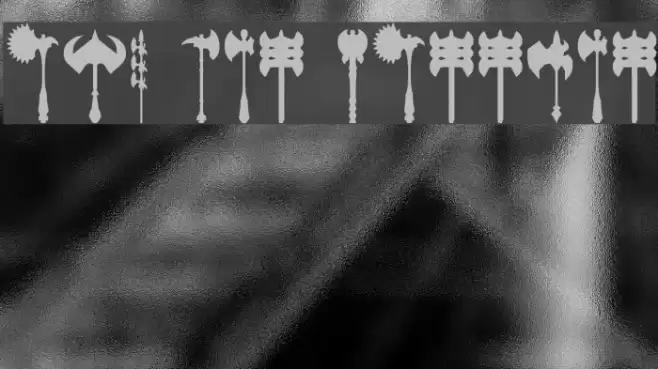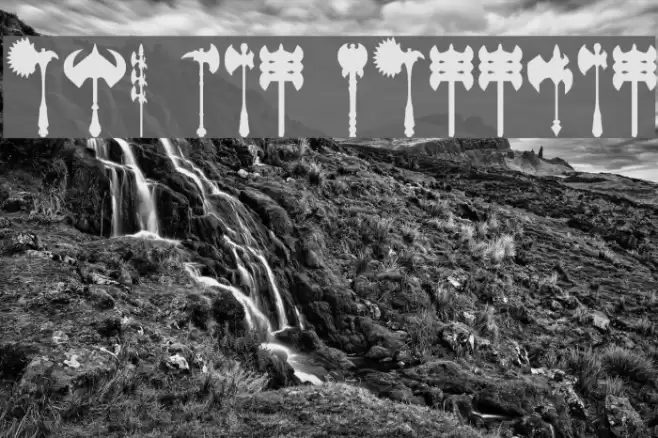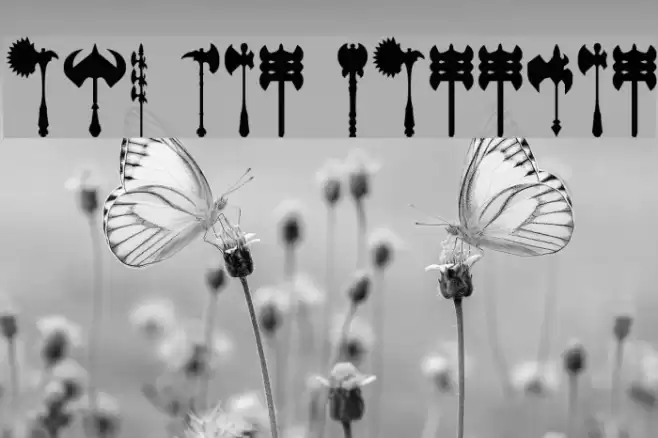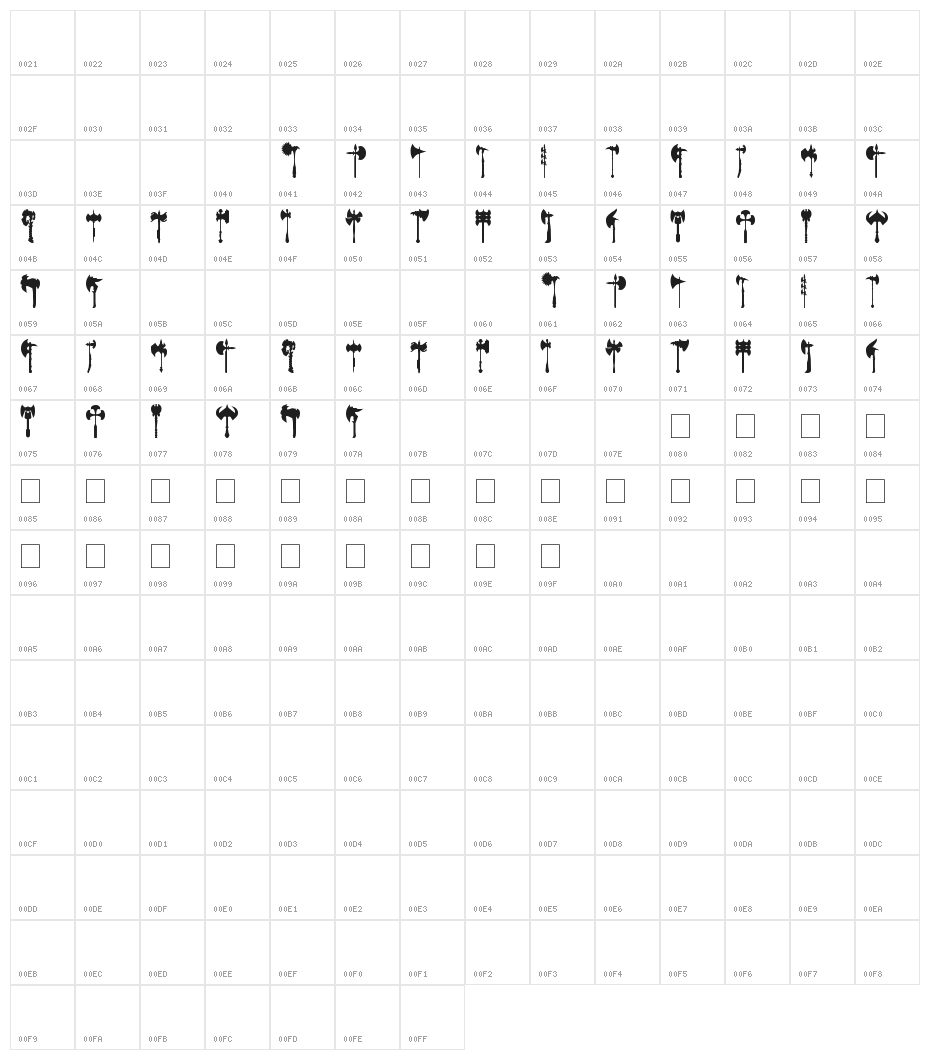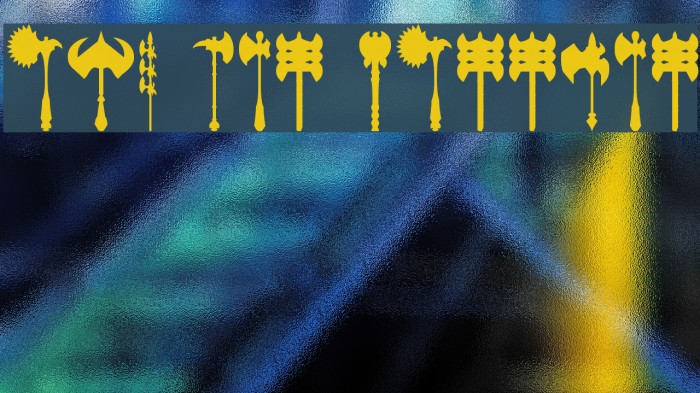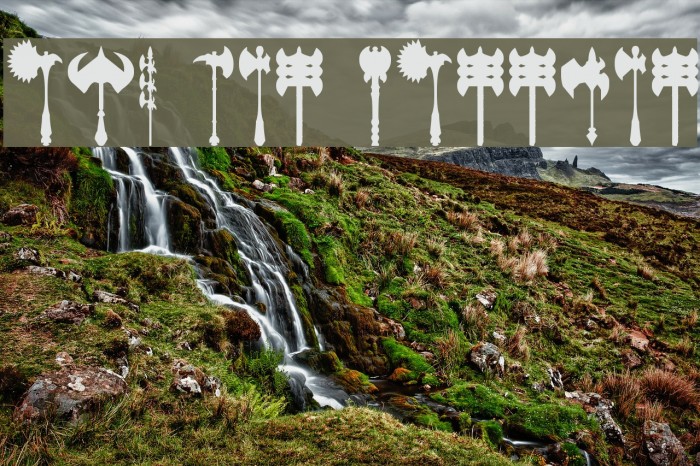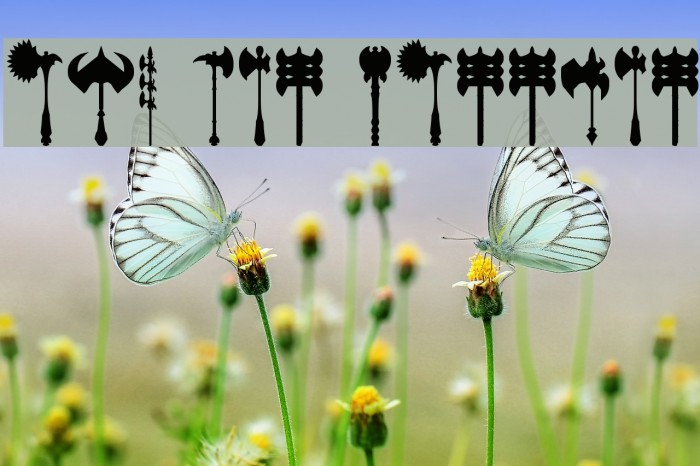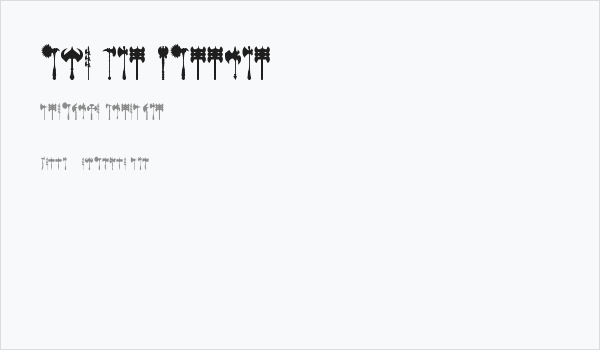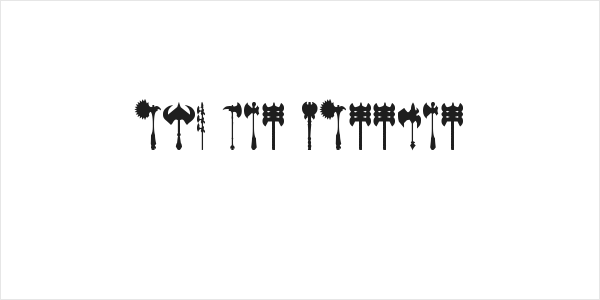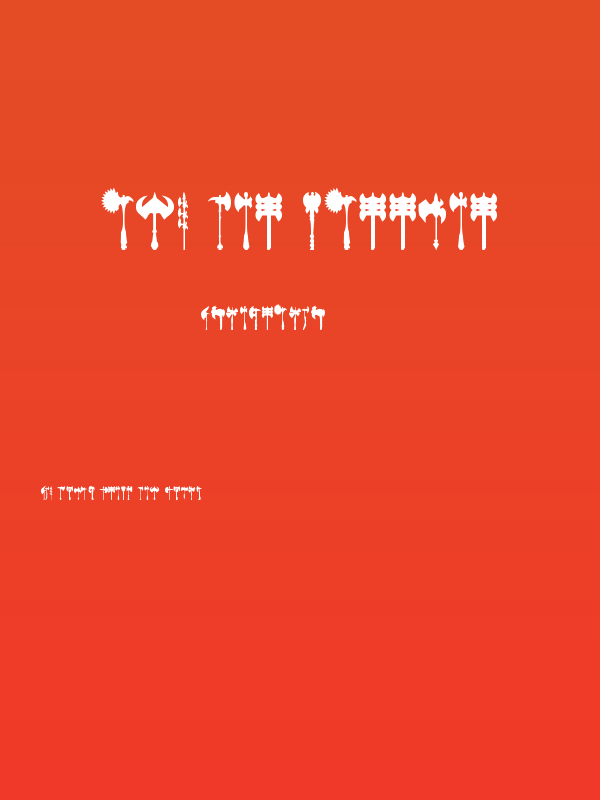
axe for warrior Font
axe for warrior Description
A decorative and bold display font featuring silhouettes of various fantasy and medieval-style axes as glyphs, each character represented by a unique weapon design with strong, solid black fills and high visual impact.
A bold display font made of axe silhouettes for each character from Uncategorized fonts.
- Proposed Projects: Fantasy game titles, poster art, themed event invitations, role-playing game materials, decorative headings.
- Overall Style: Decorative, Fantasy, Thematic
- Use Case: Logos, Headlines, Posters, Themed Graphics